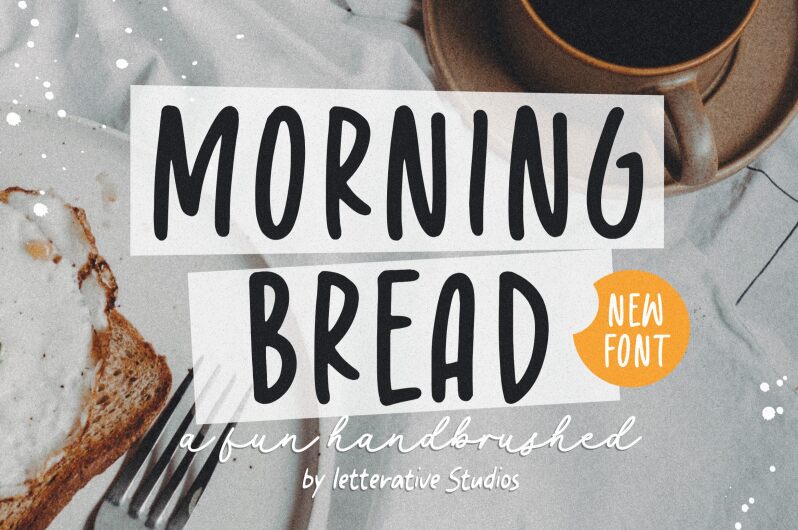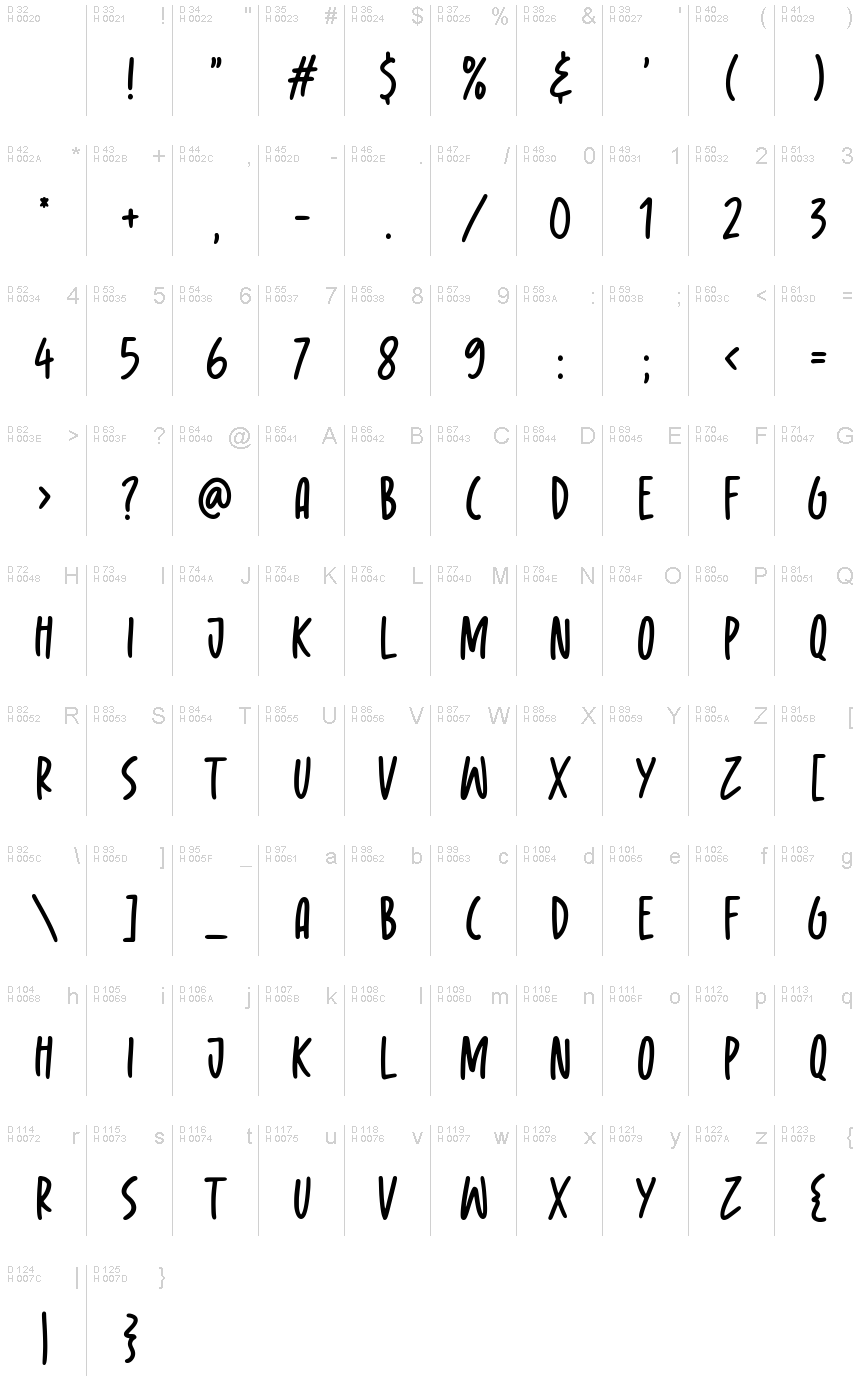
Morning Bread font by Letterative Studio fills your textual needs with its playfully casual letters. With an informal and friendly tone, this free font is where pencil-like handwritten strokes meet the wonderful condensed letter structure. Its organic flow creates an inviting atmosphere that can easily make viewers feel comfortable and welcomed.
Morning Bread is ideal for printed branding that ranges from business cards to brochures and flyers. The font also has the perfect texture for personal blogging, journaling, diary-keeping, or everyday scrapbooking of your favorite photos.
Morning Bread
Letterative Studio